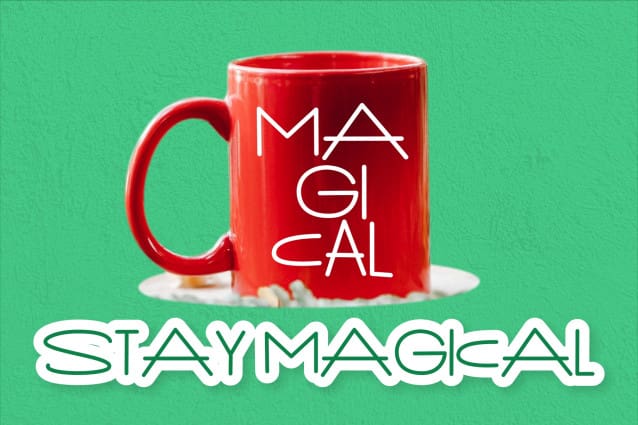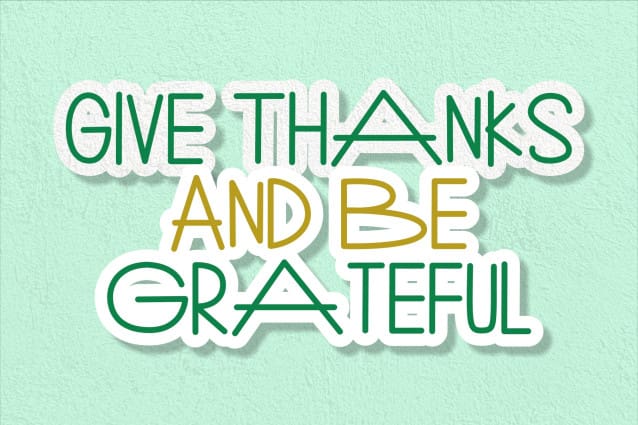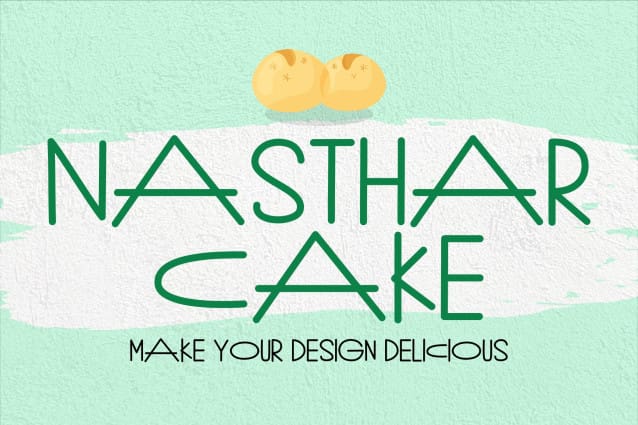
Nasthar Cake Font
Nasthar Cake Font is a cute and unique font with an incredibly friendly feel. Whether you’re looking for fonts for posters, logos, magazines, book covers, banners, DIY projects and many more!!! This font will turn any creative idea into a true piece of art!